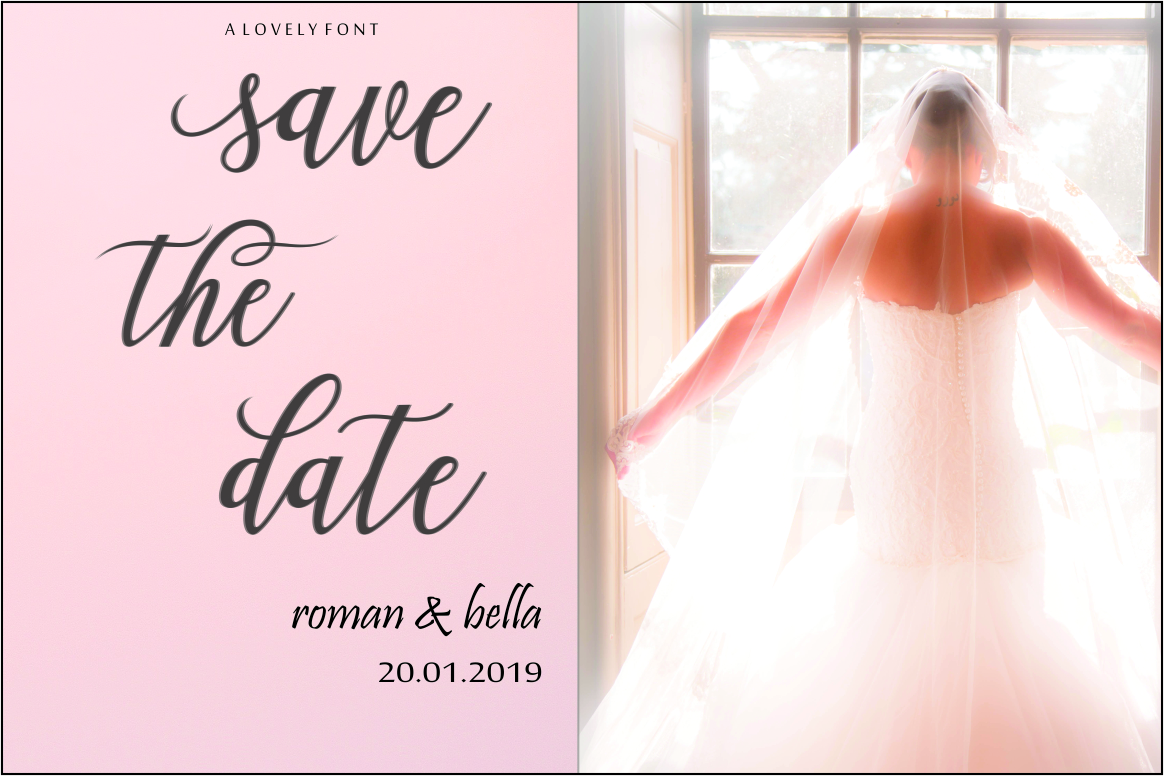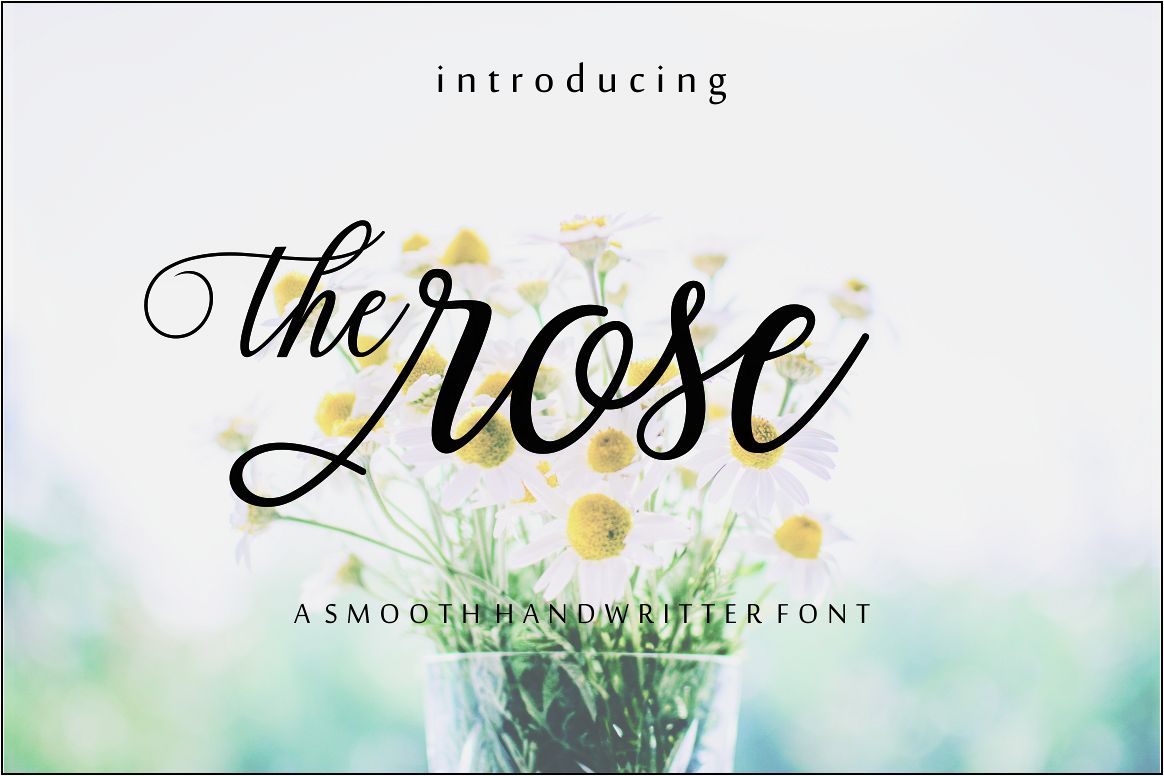
The rose Script Font
The rose “is a modern font, every letter script has been carefully crafted to make your text look beautiful with an elongated connection model. With a modern script style this font will be perfect for various projects, for example: weddings, invitations, greeting cards, posters, business cards, quotes, blog headers, branding, logos, fashion, clothing, letters, stationery, quotes. newsletterThe rose “include beautiful alternative glyphs and swirls in fonts including stylistic sets, etc.